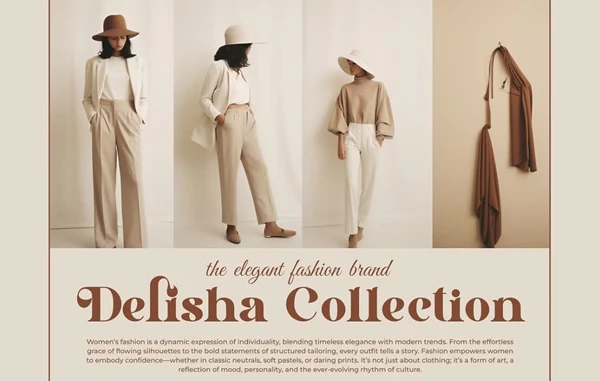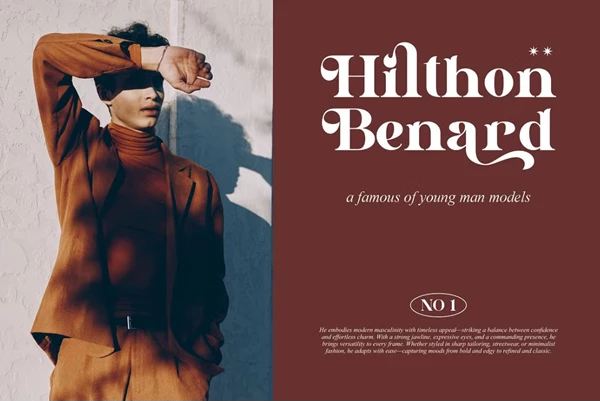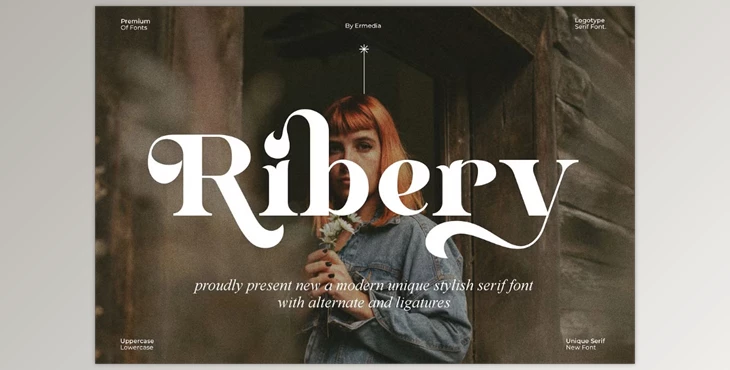
Ribery || Unique Serif Font:
Ribery Serif is a perfect combination of uniqueness and elegance, making it perfect for logo and brand design. This font will suit any design work, such as invitation cards, logos, movie titles, business cards, and even book covers. It is beautifully and smoothly styled and really easy to read. It is very stylish, which, along with its elegant ligatures, makes any project it is used in look exquisite and elevate its class.
Some great features of Ribery || Unique Serif Font:
- Has stylish ligatures
- Has upper and lower case support
- Has numbers and punctuation